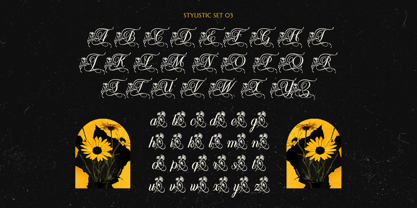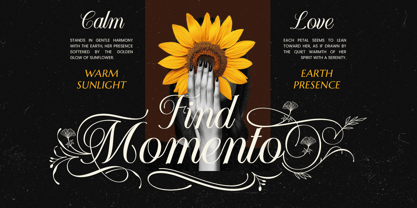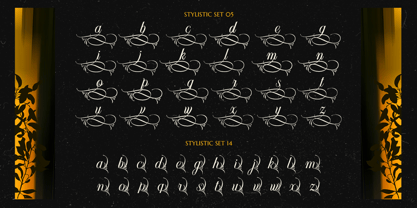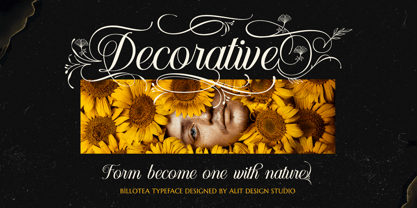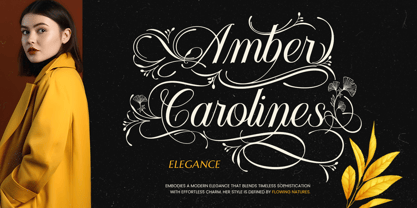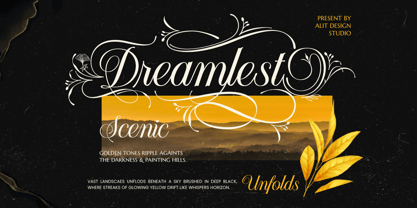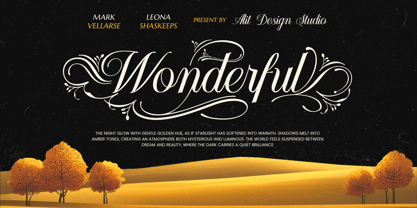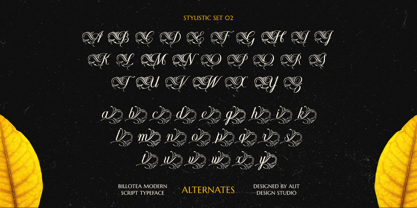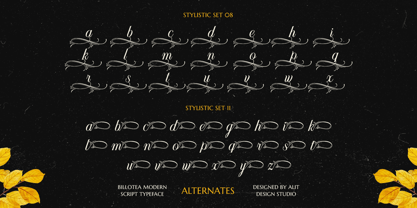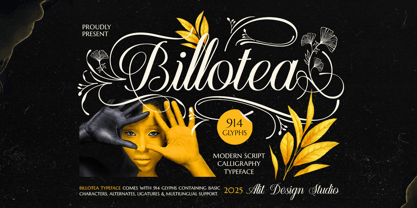
Billotea
The Billotea Font Family was designed by Alit Suarnegara and published by Alit Design. Billotea contains 1 styles. More about this family
Billotea Typeface: An Elegant Dance of Calligraphy and Nature
Introducing Billotea Typeface, a masterpiece of modern script that blends the grace of classic calligraphy with the allure of stunning natural ornaments. Designed by Alit Design Studio, Billotea is more than just a font; it is a work of art crafted to bring luxury and organic beauty into your every design.
Each letter in Billotea is designed with high precision, adorned with intricate, abstract floral tendrils that flow beautifully. These ornamental details, inspired by the beauty of ginkgo leaves and wild flora, merge harmoniously with the calligraphic brushstrokes, creating a visual harmony that feels alive, lavish, and unforgettable.
With over 914 glyphs, Billotea offers limitless design flexibility. Explore its vast array of Stylistic Sets, character alternates, and ligatures to compose text that is not only legible but also tells a story and possesses a soul. Every combination of letters can yield a unique look, turning each of your projects into a masterpiece.
Key Features:
• Elegant & Organic Design: A perfect fusion of modern script calligraphy with detailed and intricate floral ornaments.
• Extensive Glyph Collection: Equipped with 914 glyphs, including uppercase and lowercase letters, numerals, punctuation, and symbols.
• Abundant Stylistic Alternates: Dozens of stylistic sets and character alternates allow for endless customization to achieve the perfect look.
• Multilingual Support: Reach a global audience with support for a wide range of languages.
Perfectly Ideal For:
• Luxury Branding: Excellent for logos, wordmarks, and brand identities in the fashion, cosmetics, jewelry, and hospitality industries.
• Invitation Design: Create romantic and exclusive wedding invitations, gala event cards, and greeting cards.
• Premium Product Packaging: Make your product packaging stand out on the shelves with classy typography.
• Headlines & Editorial: Add an artistic touch to magazine headlines, book covers, and inspirational quotes.
• Other Creative Projects: From movie posters to social media content, Billotea will always leave a profound impression.
Billotea Typeface is the ultimate choice for designers who wish to instill a touch of natural beauty and timeless elegance into their work. Bring nature-inspired luxury to your next design project.